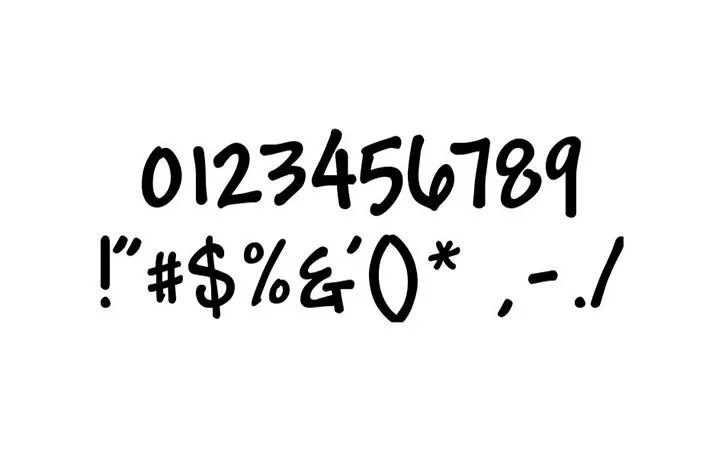
Andy Bold Font is a childish casual style typeface with a hand-crafted look, this font will come in handy. It’s free to use with your personal projects. It was designed by Steve Matteson.
“This font family comes in a single weight with True Type file format. This style contains 246 glyphs, uppercase, lowercase, numbers, symbols, and 1783 binary stored kerning pairs. Moreover, it also supports 68 languages.”
It has a youthful vibe with improper baselines because all textures are handmade. But it maintains natural flow with sweetness which delivers to design where it applies.
Due to its mimic and organic look, you can try it out for product designs, packaging, game titlings, headers, flyers, banners, kid’s elements, branding, logos, and many other places.
| Style: | Handwritten, Casual, Typeface |
| Font Designer: | Steve Matteson |
- It can be used for a variety of stylish purposes, such as signs, t-shirt printing, movie posters, game graphics, special cards, t-shirts, magazines, books, greeting/wedding cards, letterhead, signs, labels, and news. , posters, card printing, shopping bags, brand logos, social media banners, headers, titles, flyers, cards, product packaging and more.
What is an Andy Bold Font?
Andy Bold Font is a childish casual style typeface with a hand-crafted look, this font will come in handy. It’s free to use with your personal projects. It was designed by Steve Matteson.